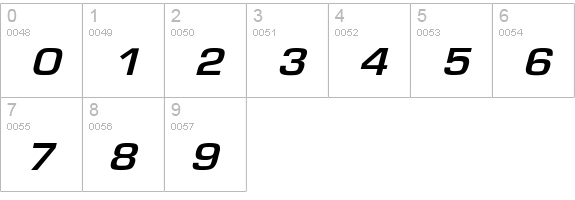
GardenwayExtObl font is a beautifully designed typeface that exudes elegance and sophistication. Its elongated and oblique style adds a touch of modernity to any project while maintaining a classic appeal. The sleek lines and graceful curves make this font perfect for a variety of creative endeavors, from branding to editorial design. What's even better is that GardenwayExtObl font is completely free to download at FontsMarket.com. This means you can enhance your projects with this stunning font without any cost involved. Don't miss out on the opportunity to elevate your designs with the timeless beauty of GardenwayExtObl font, available for free at FontsMarket.com.